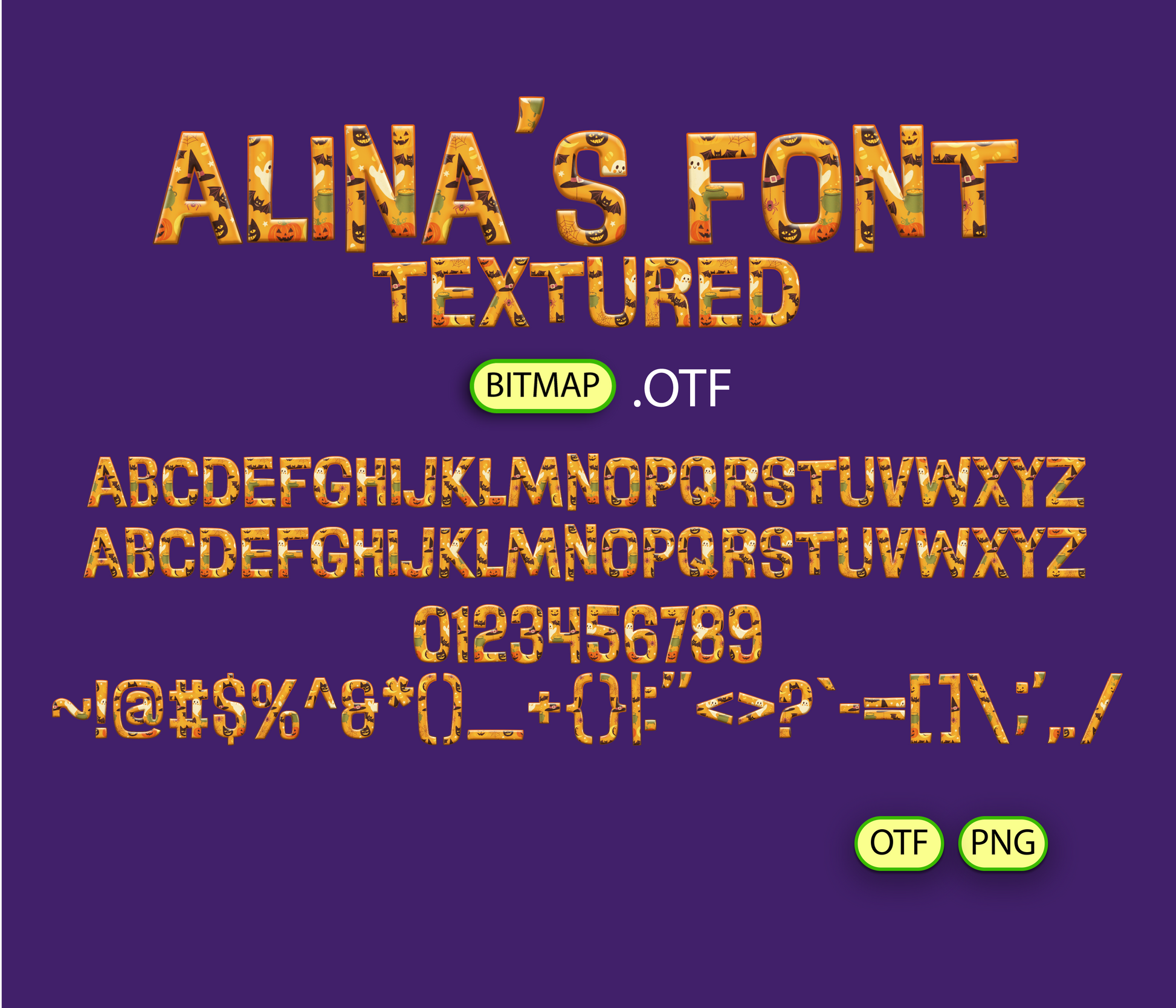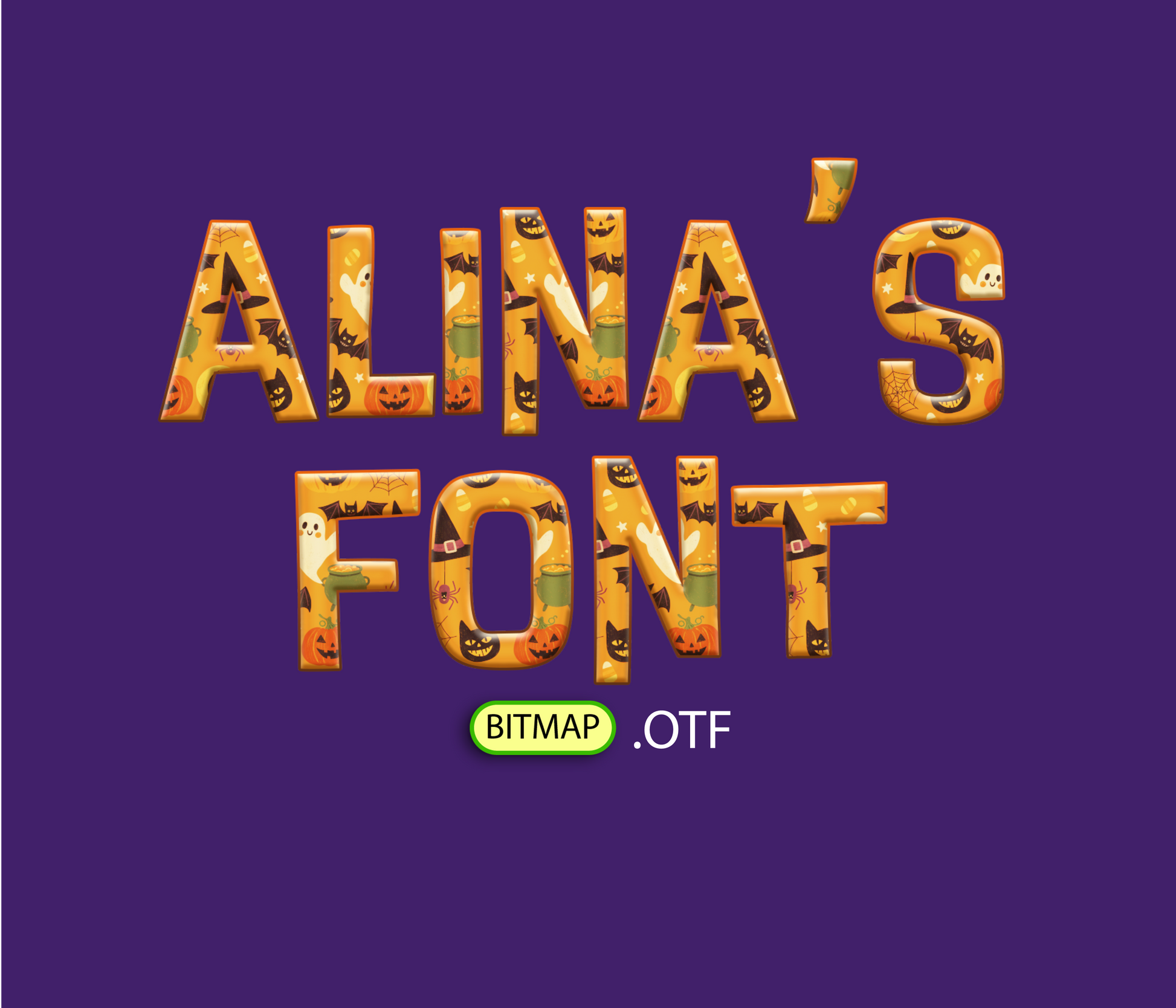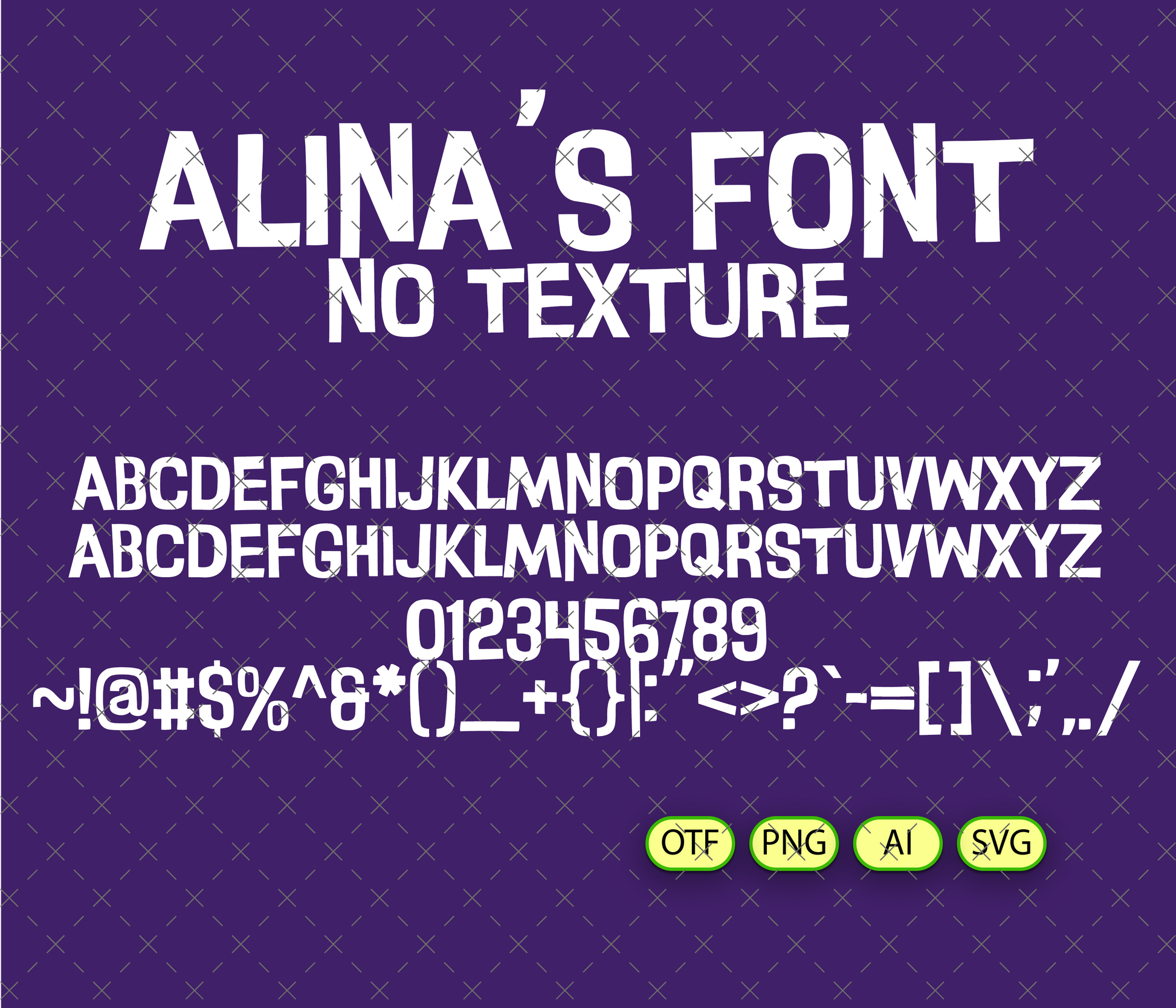
FREE Halloween Pumpkin Witch Pattern Font
Step into the spooky world of autumn magic with our Halloween Pumpkin Witch font, capturing the essence of enchanted nights and mystical celebrations. Perfect for Halloween enthusiasts, party planners, event organizers, and designers, this font brings the bewitching, festive spirit of haunted harvests to your projects. Create spine-tingling materials, merchandise, or digital content with the magical energy of spooky season.
Our Halloween Pumpkin Witch font features whimsical, haunting lines and spellbound characters reflecting the world of autumn enchantment. Ideal for:
- Event Promotions: Create spooky invites, posters, and banners for Halloween parties, trick-or-treat events, and costume gatherings that capture the spirit of bewitching nights
- Merchandise Design: Perfect for t-shirts, posters, and accessories that showcase the festive aesthetic of jack-o-lanterns and magical celebrations
- Digital Media: Enhance websites, blogs, and social media with haunting headers and graphics that express the charm of spooky season
- Seasonal Content: Add authentic flair to party decorations, autumn projects, and creative designs inspired by Halloween traditions
- Personal Projects: Bring enchanting excitement to scrapbooking, DIY crafts, and home decor inspired by the world of mystical autumn nights
Our font pays tribute to the iconic world of autumn magic, empowering your designs with its bewitching and festive spirit. Whether crafting promotional materials, designing merchandise, or adding a spooky touch to personal projects, this font communicates the enchanting essence of Halloween celebrations. Ready to inject magical charm into your creations? This font is your key to exciting, impactful design.